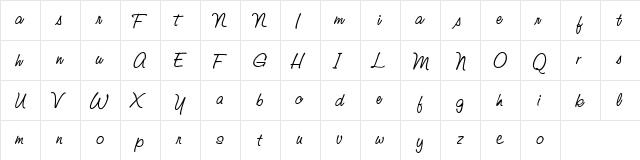
StudioScriptEF Regular
| Foundry | Elsner+Flake |
Design Context for StudioScriptEF Typeface
StudioScriptEF flows with the natural rhythm of handwritten lettering, making it ideal for designs that call for warmth and personal expression.
Font Pairing: Combine StudioScriptEF with a simple geometric sans for maximum contrast — the tension between flowing curves and clean structure is a classic typographic pairing.
Pro Tip: Pair StudioScriptEF with a clean sans-serif for supporting text. The contrast between fluid script and geometric structure creates an elegant typographic hierarchy.